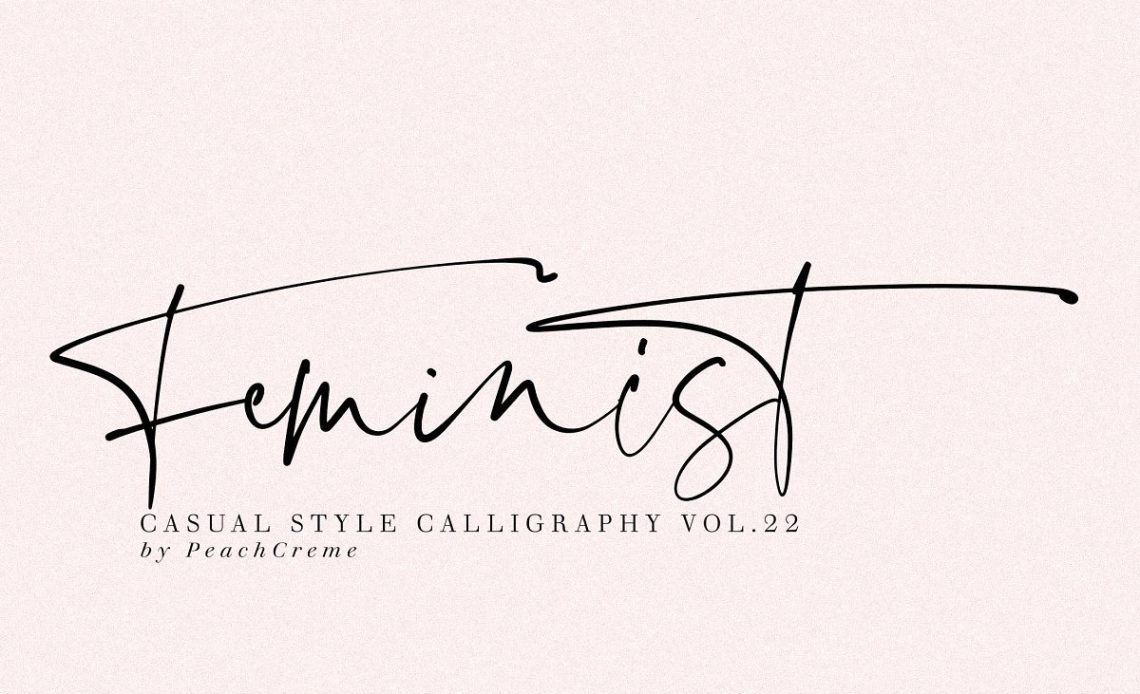
Welcome to PeachCreme, where we're celebrating International Women's Day with our latest font creation, Feminist Casual Font. This handwritten font is the perfect way to show off your support for gender equality and feminism, while also adding a touch of elegance and sophistication to your design projects.
With a smooth wet ink texture, Feminist Casual Font is versatile and can be used for a variety of printing techniques, including embroidery, laser cut, and gold foil. Its full set of uppercase and lowercase letters, multilingual symbols, numerals, and punctuation make it the ideal font for any project.
Feminist Casual Font also features a range of ligatures, including ld, ss, at, am, an, ay, ab, nn, tt, sa, zz, att, ul, oll, ull, ol, all, ch, ell, el, al, mm, ua, onn, ll, htau, pp, il, ill, gg, cc, ot, ott, ut, utt, it, i, tt, et, ett, nt, ntt, un, om, in, on, um, bl, kl, Cl, yl, dd, and ed.